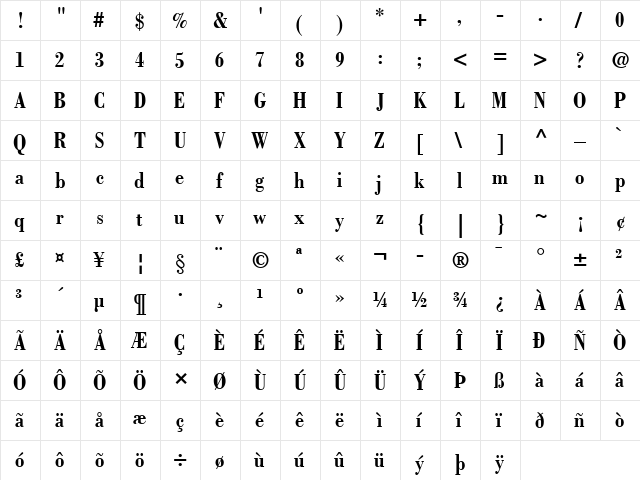
Bodoni LT BoldCondensed Regular
Design Context for Bodoni LT BoldCondensed Typeface
Bodoni LT BoldCondensed offers clean, dependable letterforms without strong stylistic allegiance, making it a practical choice for designers who need flexibility. The heavy weight commands attention and anchors typographic hierarchies. Its narrow stance lets it pack a punch even in space-constrained designs.
Pro Tip: Use Bodoni LT BoldCondensed in both headline and body roles to test its range before committing to a single application.